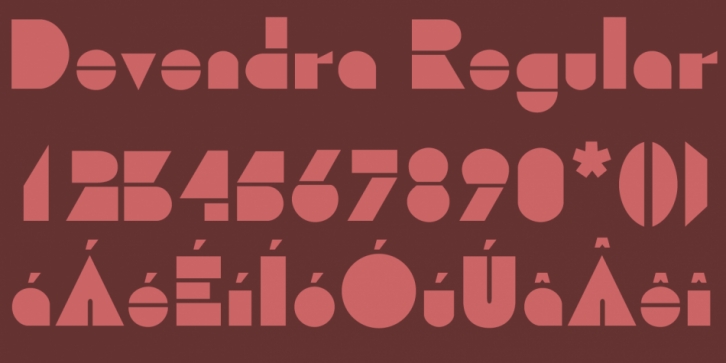
Designed by Jordan Davies, Devendra is an art deco font published by Wooden Type Fonts.
An art deco style sans serif font, unusual in that negative spaces are missing from letters like lower and upper case o.